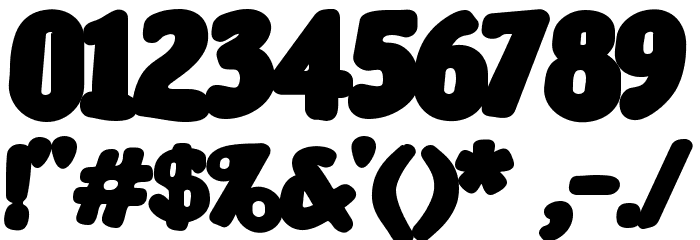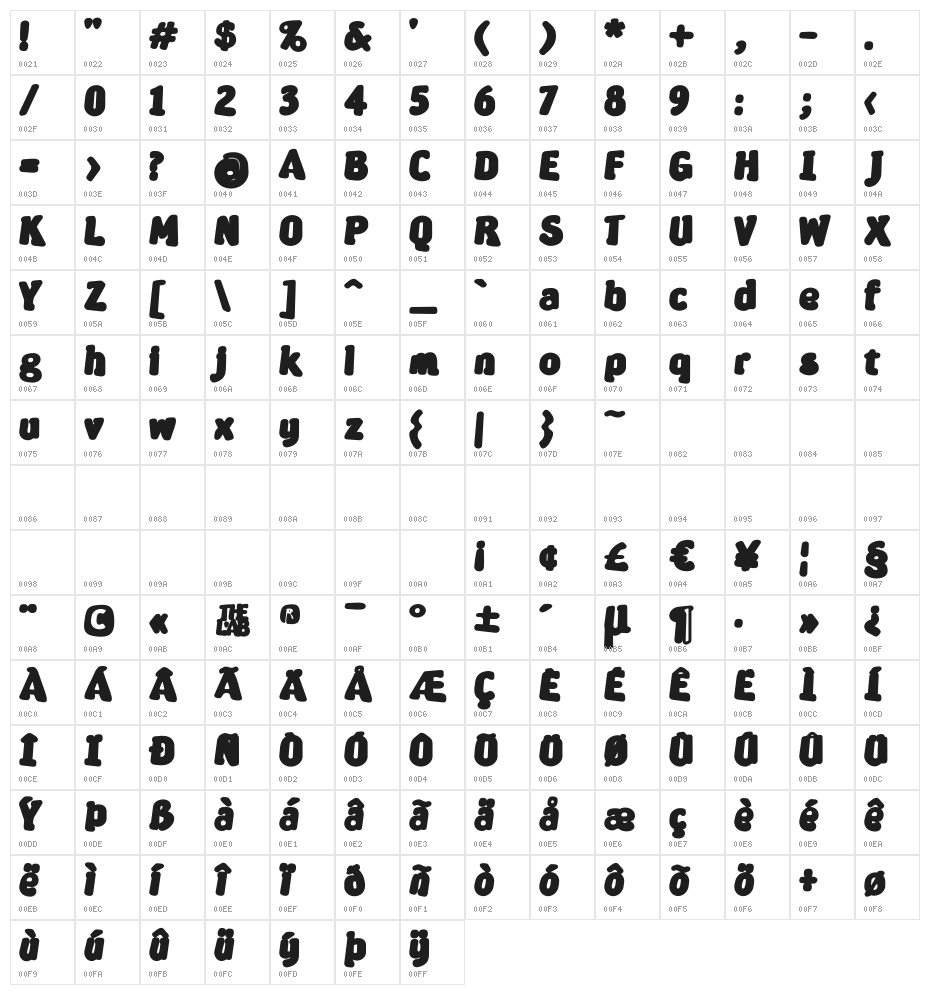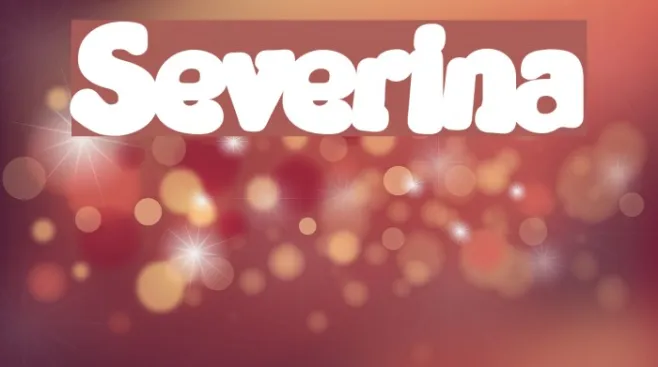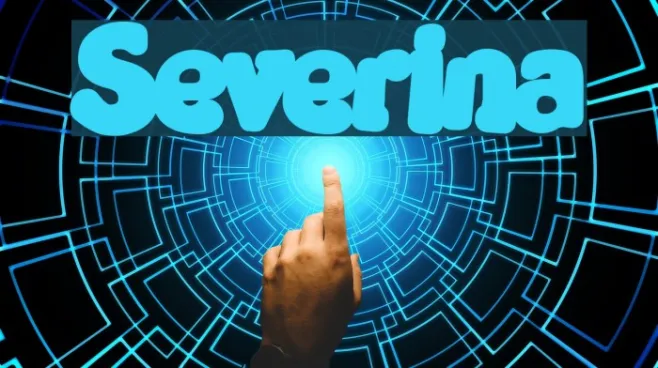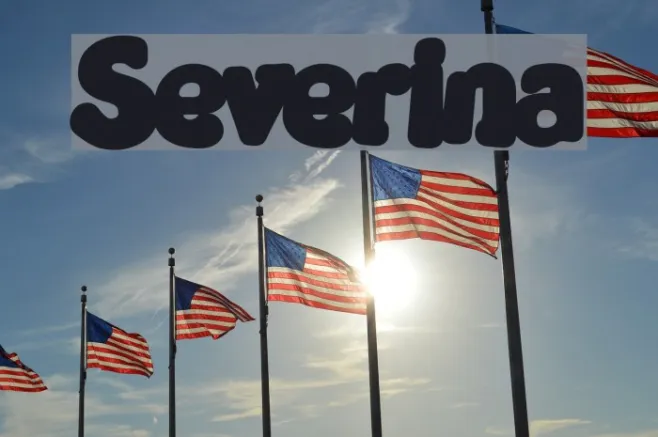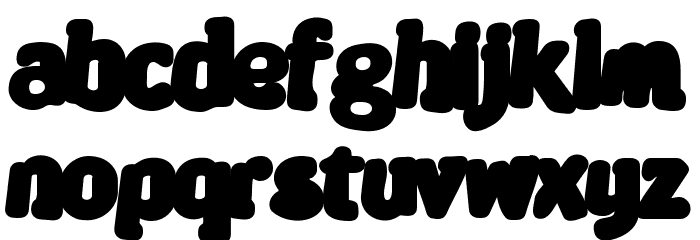
Severina Font
Severina Description
This bold, playful font features thick, rounded characters that convey a sense of fun and creativity. The letters are uniformly bold with a consistent stroke width, giving the font a cohesive and solid appearance. The rounded edges and slightly irregular shapes add a whimsical touch, making it ideal for projects that require a friendly and approachable feel. The numbers and special characters maintain the same playful style, ensuring consistency across all text elements.
| Proposed Projects | Ideal for children's books, playful branding, posters, and social media graphics. |